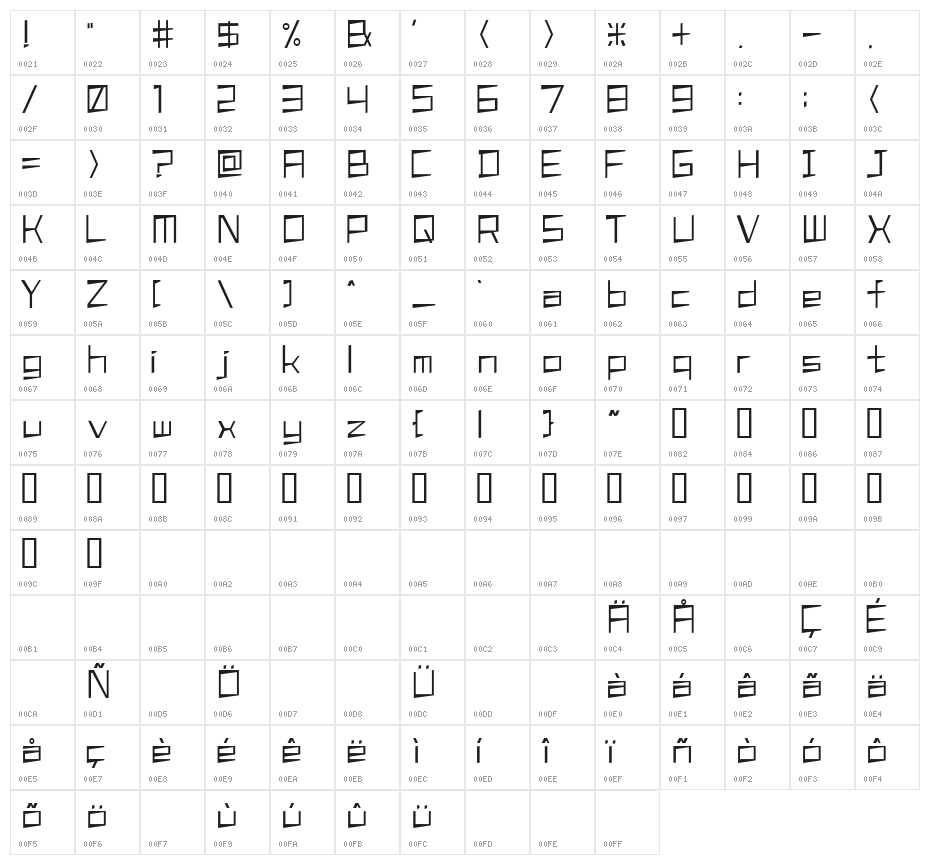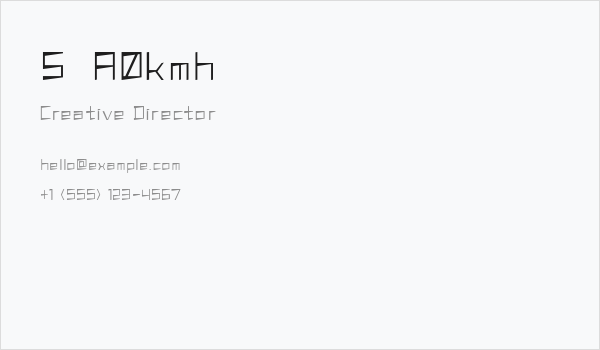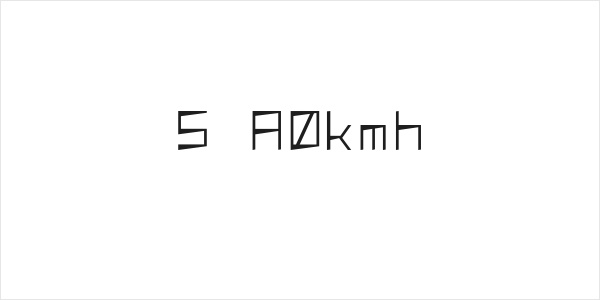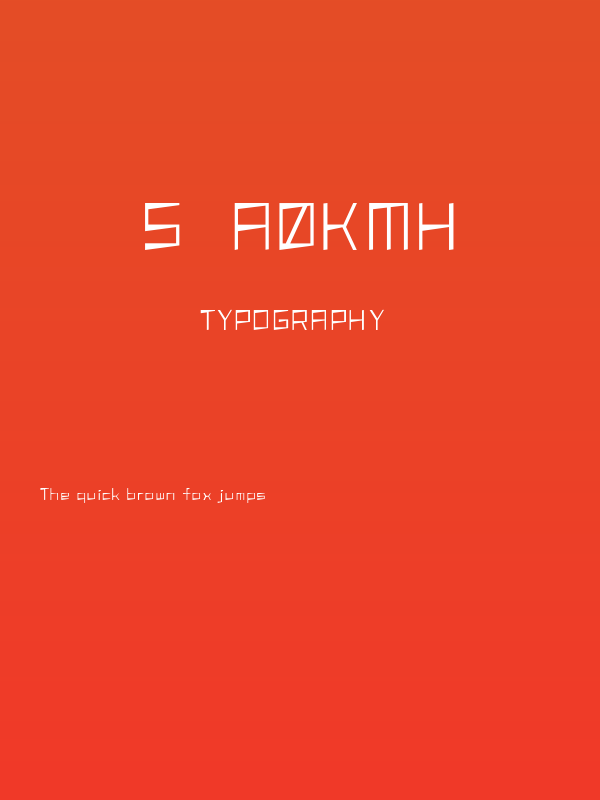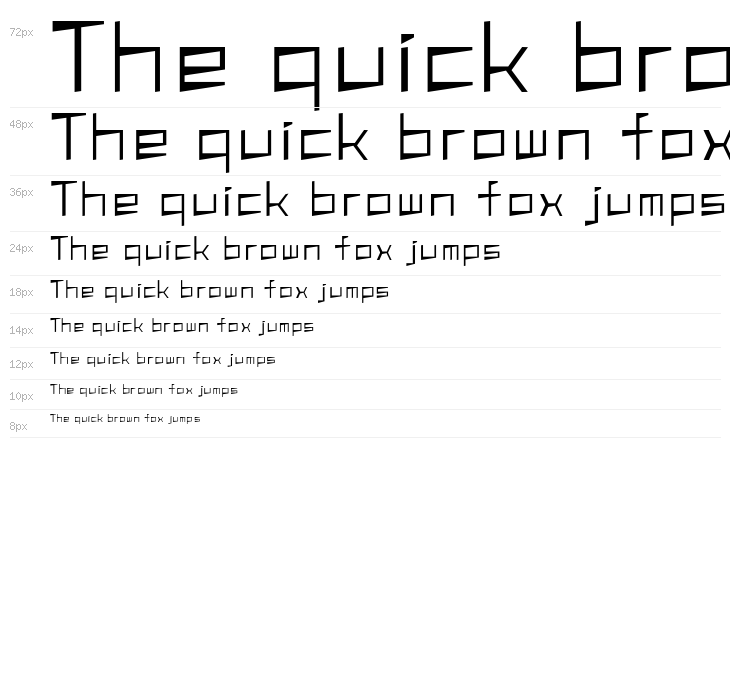
S A0kmh Font
S A0kmh Description
This font features a modern, geometric design with sharp angles and clean lines. The characters are constructed with a consistent stroke width, giving it a uniform appearance. The uppercase letters have a distinct, angular style, while the lowercase letters maintain a similar geometric form. The numerals are bold and easily readable, matching the overall aesthetic of the alphabet. Special characters are designed to complement the letters and numbers, maintaining the same angular and modern look. This font is suitable for projects that require a contemporary and edgy feel, making it ideal for technology-related designs or modern branding.
| Proposed Projects | Ideal for technology branding, modern advertising, and edgy graphic design projects. |